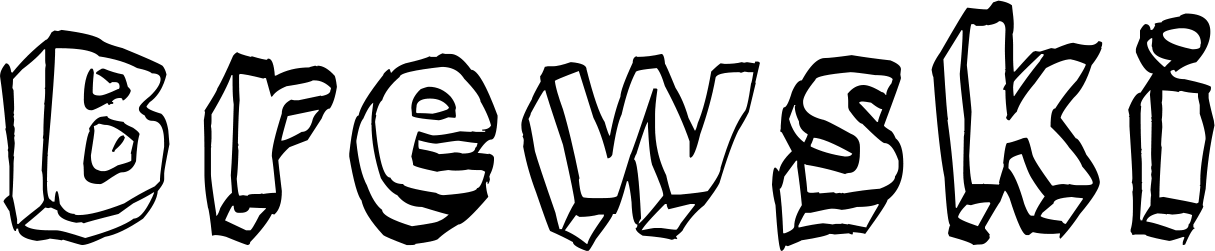
Brewski Font
Making your writing ideas into reality requires a unique font to catch the sight of many audiences. Brewski, a 3D cartoon font is what differentiates your writing projects from others and is up to communicating in a friendly way with all of the readers. The modern and chunky design, makes it striking for designing any cartoon titles, comic books, posters, banners, magazines, and more.